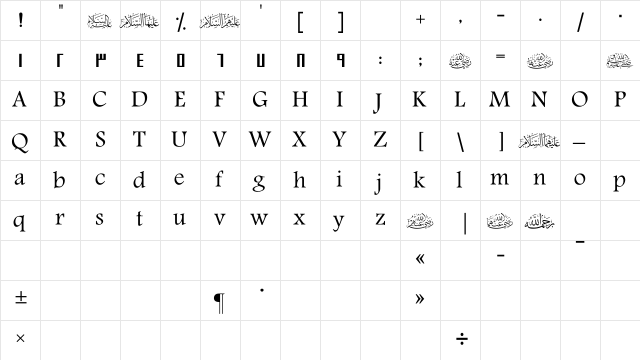
SC_KHALID REGULAR
Design Context for SC_KHALID Typeface
SC_KHALID takes a measured approach to typography — its balanced proportions and neutral character make it a reliable workhorse for both digital and print work.
Pro Tip: Pair SC_KHALID with a font of contrasting weight or personality to build a more expressive typographic hierarchy.